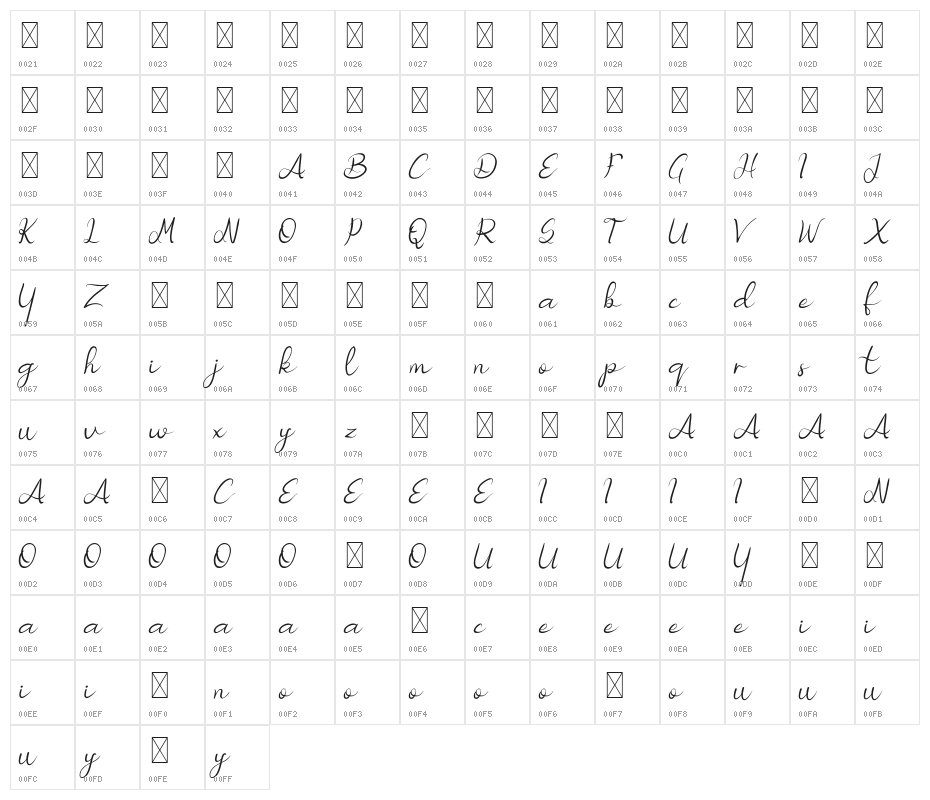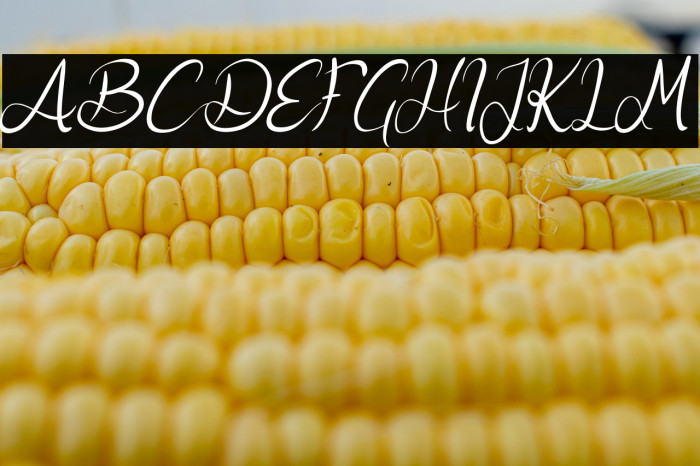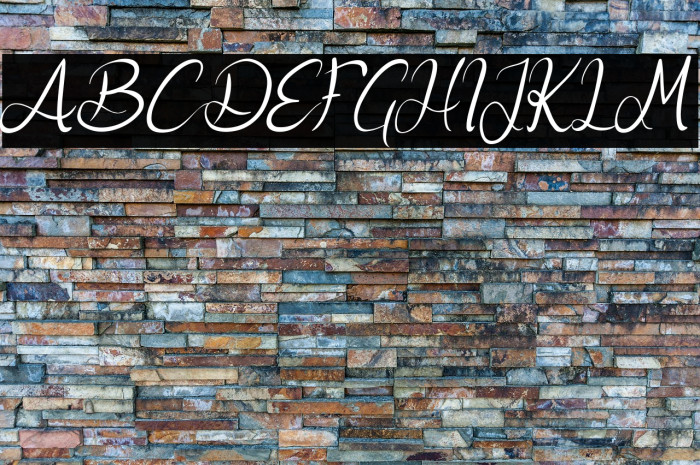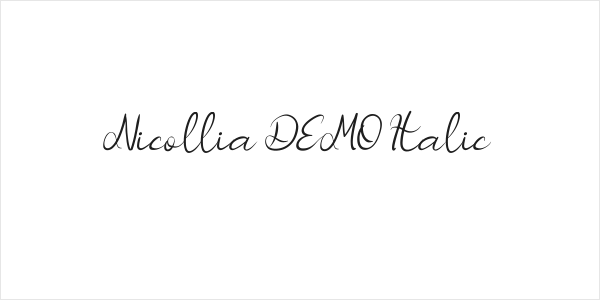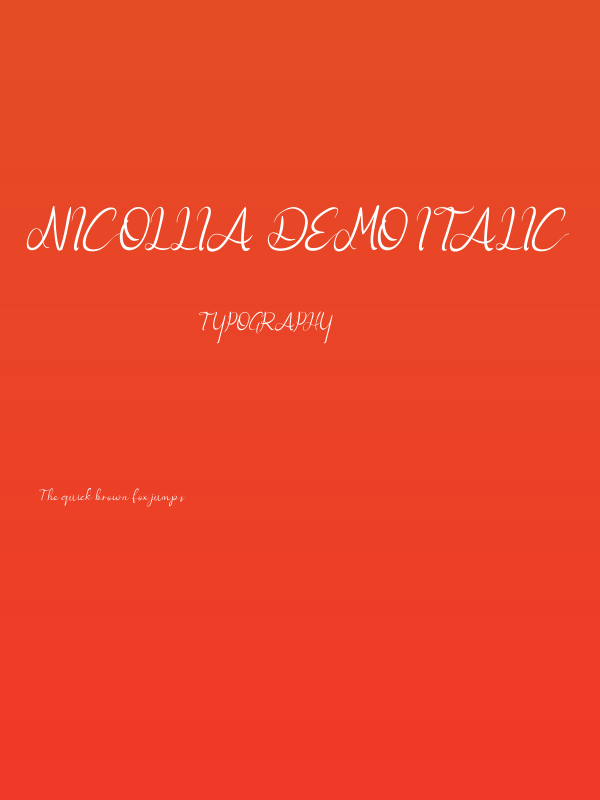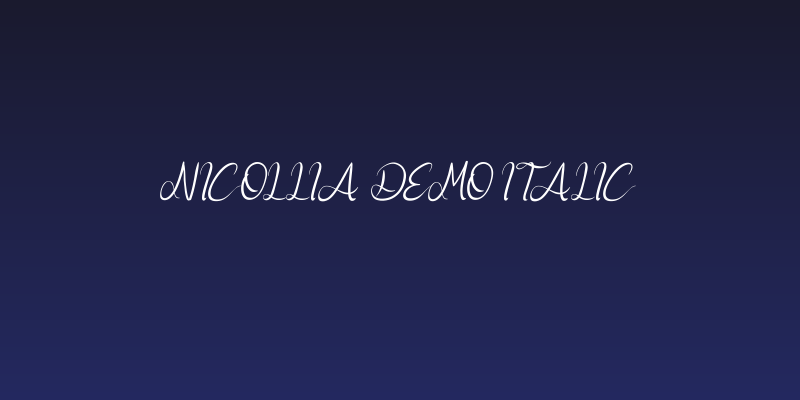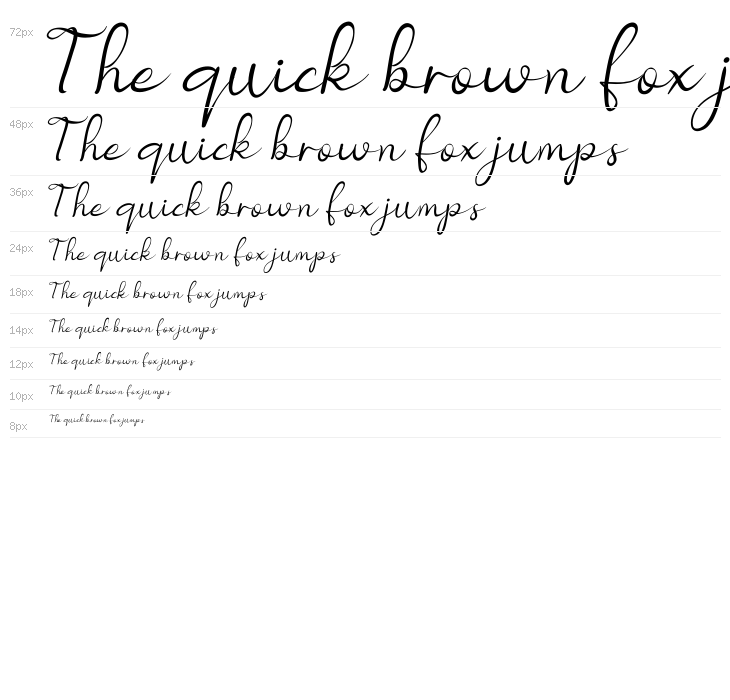
Nicollia DEMO Italic Font
Nicollia DEMO Italic Description
This font features an elegant and flowing script style, characterized by its smooth, cursive letterforms that convey a sense of sophistication and grace. The uppercase letters exhibit a distinct flair with sweeping curves and loops, while the lowercase letters maintain a consistent fluidity that enhances readability. The font's italic nature adds a dynamic and expressive quality, making it ideal for creative and artistic projects. The absence of special characters suggests a focus on alphabetic expression, emphasizing the beauty of the letterforms themselves.
| Overall Style | Elegant, Artistic |
| Proposed Projects | Ideal for wedding invitations, greeting cards, branding, and elegant logo designs. |